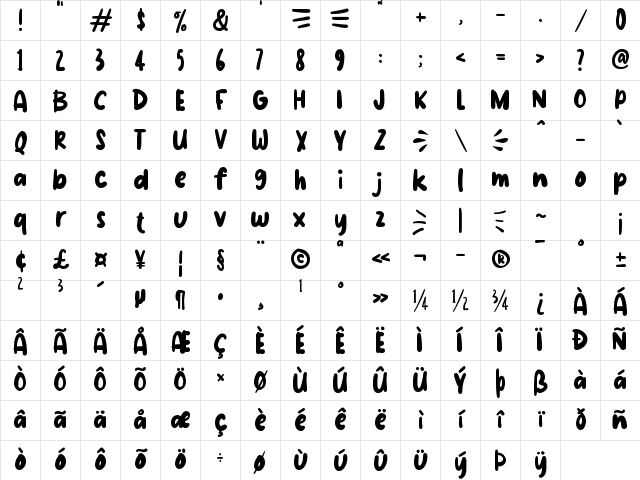
Love Days Regular
Foundry: DM Letter Studio
Designer: Dimas Prasetyo
Design Context for Love Days
Love Days is a composed and adaptable typeface that performs quietly and consistently across a wide range of design contexts.